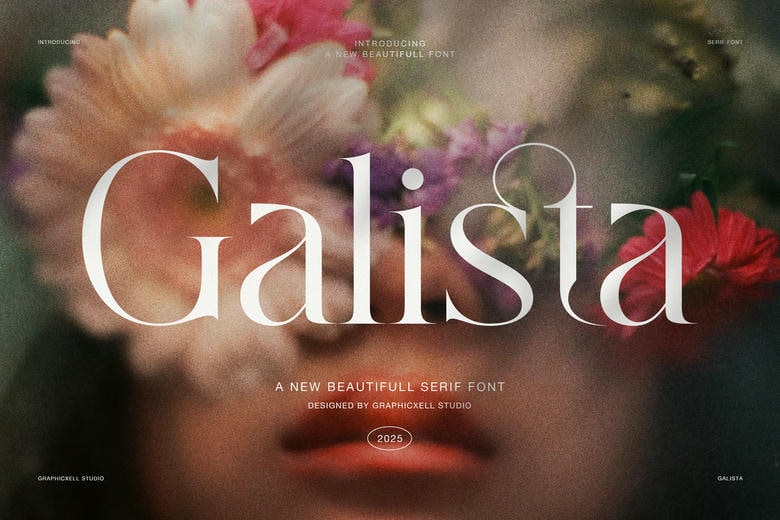
Galista Font
Galista Elegant Serif Font provides the touch of elegance to contemporary design. All curves and details are full of harmony, accuracy, and artistic attention. The rhythm of its smooth lines and its beautiful contrast is the feeling of elegance, expressiveness, and character.
Glisted as a designer, Galista is a combination of traditional serif form with a modern twist. Due to its elegant shape and fancy tone, this font improves the project that requires clearness and style. It works excellently in branding fashion, editorial layout, packaging, and wedding invitations.
Galista Elegant Serif Font